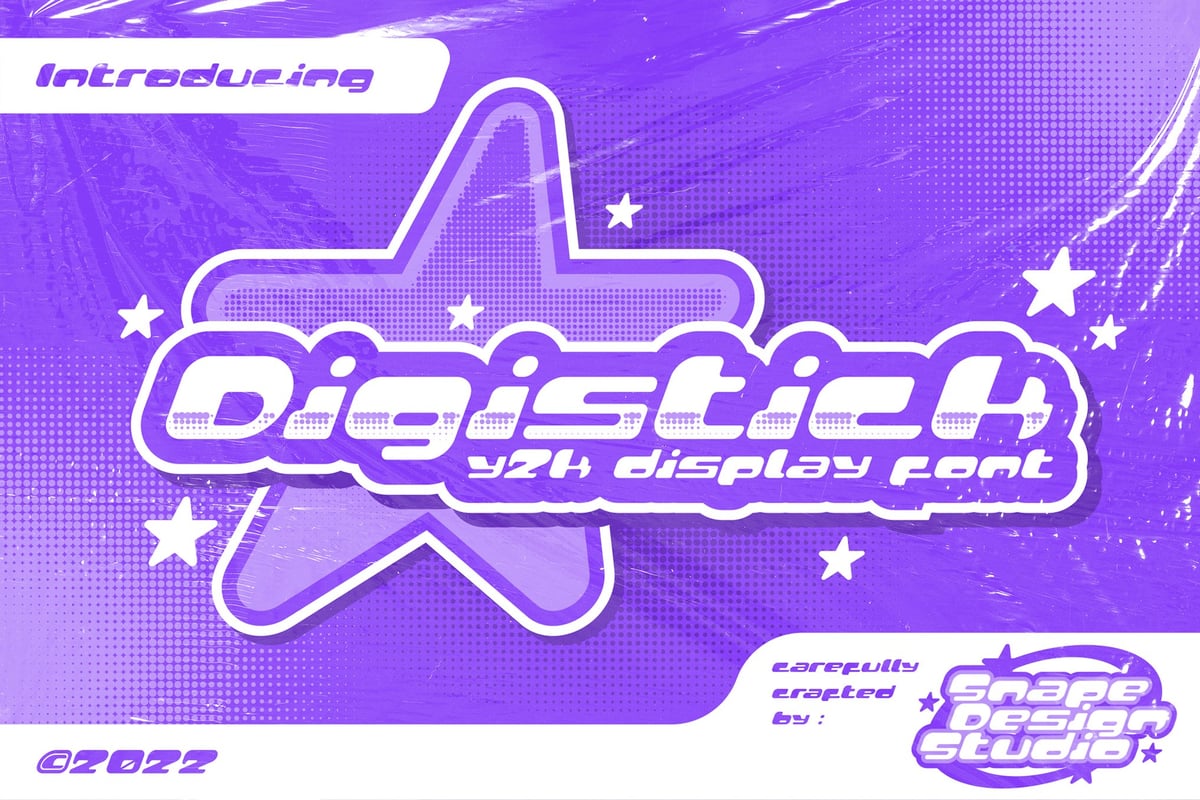
Digistick - Y2K Font
Transform your designs with Digistick, a bold futuristic font inspired by Y2K aesthetics and pop culture. This striking typeface captures the essence of the digital millennium era, making it perfect for technology projects, space-themed designs, and galaxy concepts. The heavy Y2K influence through music and pop culture creates an authentic retro-futuristic vibe that stands out. Ideal applications include: Movie titles and film projects Documentary and multimedia content Logo design and branding ...